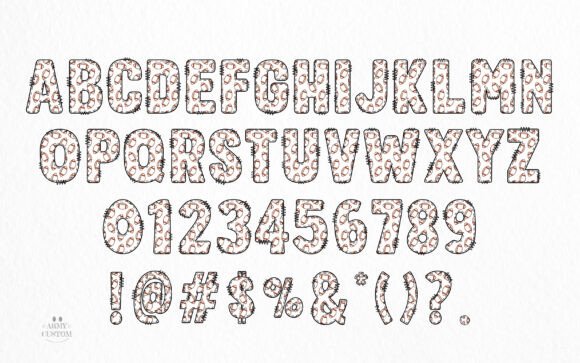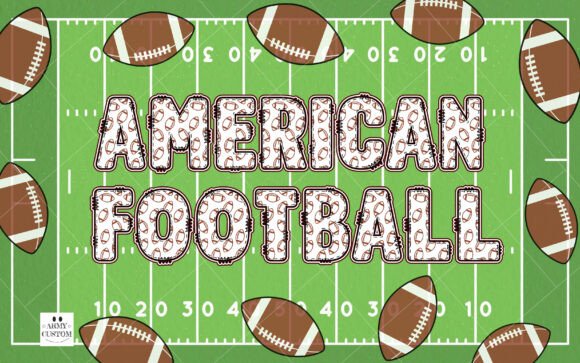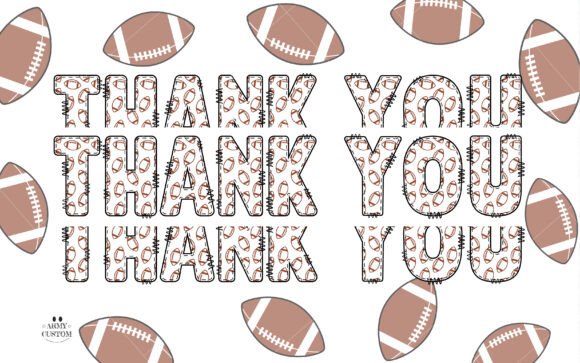
Touchdown Typography: Unleashing the Power of American Football Font
Imagine you’re on the field, the crowd cheering, the referee’s whistle blowing – the rush of adrenaline is palpable. For many, the thrill of American football is more than just a game; it’s a way of life. And now, designers can capture that essence in their work with the American Football Font, a font that embodies the sport’s unbridled energy and competitive spirit.
This innovative font is designed to transport you to the heart of the gridiron, where strength, agility, and determination reign supreme. With its athletic underpinnings and dynamic flair, it’s the perfect choice for designers seeking to communicate the raw emotion and excitement of the game. Whether you’re creating a sports-themed logo, jersey, or promotional material, the American Football Font is sure to score a touchdown with its unique blend of creativity and passion.
American Football Font Key Features
- Font Style: A unique, bold, and sans-serif font, inspired by the aesthetic of American football.
- Unique Characteristics: Features custom-designed letterforms, numerals, and punctuation marks that evoke the spirit of American football, including a distinctive ‘gridiron’ pattern in the font’s background.
- Kerning and Ligatures: Includes advanced kerning and ligature pairs to ensure smooth text rendering and a polished appearance.
Design Review: American Football Font
Overall, I’d say the American Football Font is an interesting choice for a sports font. It tries to capture the spirit of American football, with a bold and energetic feel.
Here are some things that work well: ✨
- The font’s boldness and weight are effective in conveying a sense of strength and power, perfect for a sport like American football.
- The font’s rounded edges give it a friendly and approachable feel, which is a nice contrast to the rough and tumble nature of the sport.
- The font’s use of a distinctive “V” shape in the letter “V” is a nice touch, adding to the font’s unique character.
- The font may not be suitable for all types of text, as it can be a bit overwhelming when used in large quantities.
- The font’s rounded edges may not be suitable for certain types of logos or branding, where a more angular or sharp look is desired.
- The font’s unique character may not appeal to everyone, and may even be seen as gimmicky or attention-seeking.
Overall, I’d say the American Football Font is a fun and energetic choice, but it may not be the best fit for every project or design.
The American Football Font is commonly used for:
- Designing sports-themed graphics and logos.
- Creating promotional materials for football teams and events.
- Adding a touch of sports nostalgia to designs.